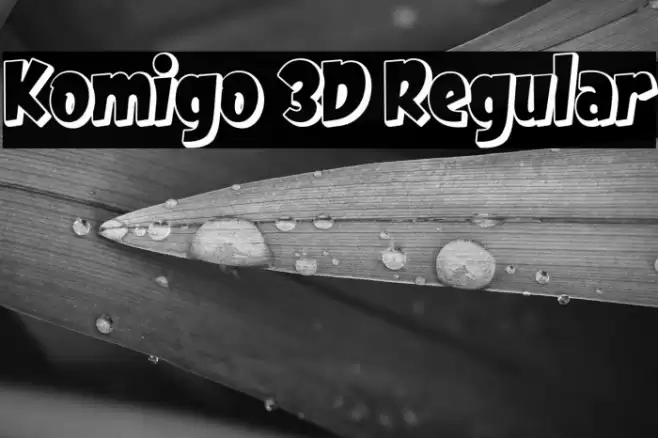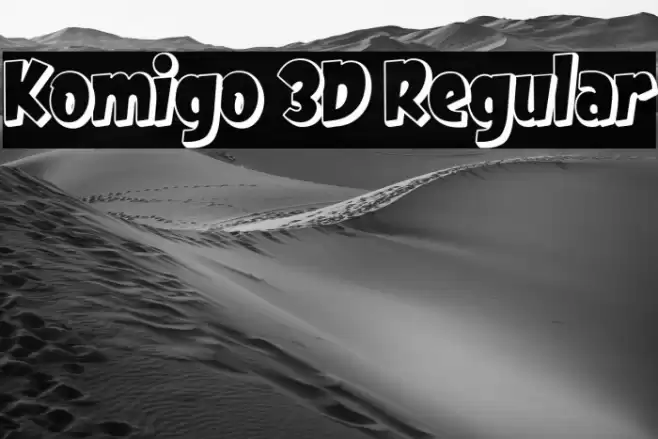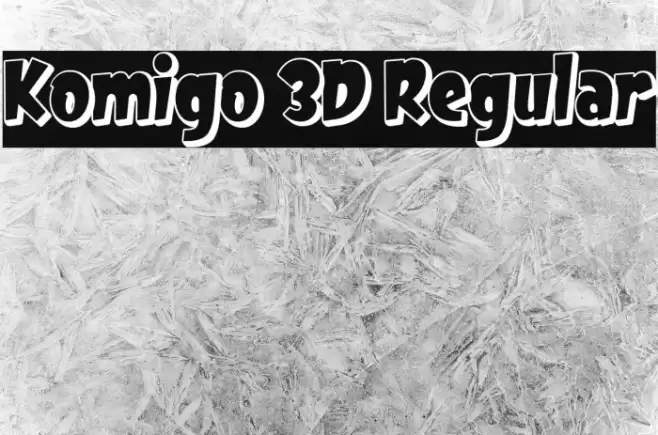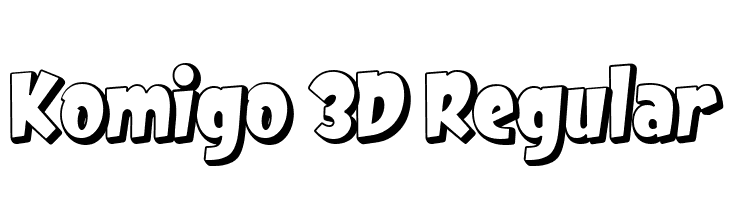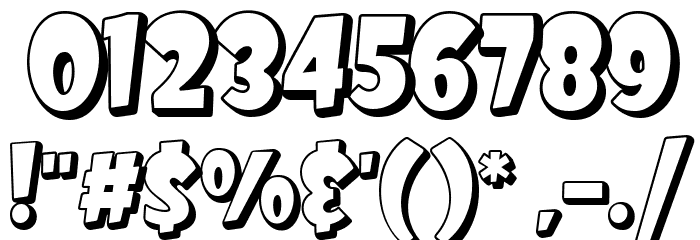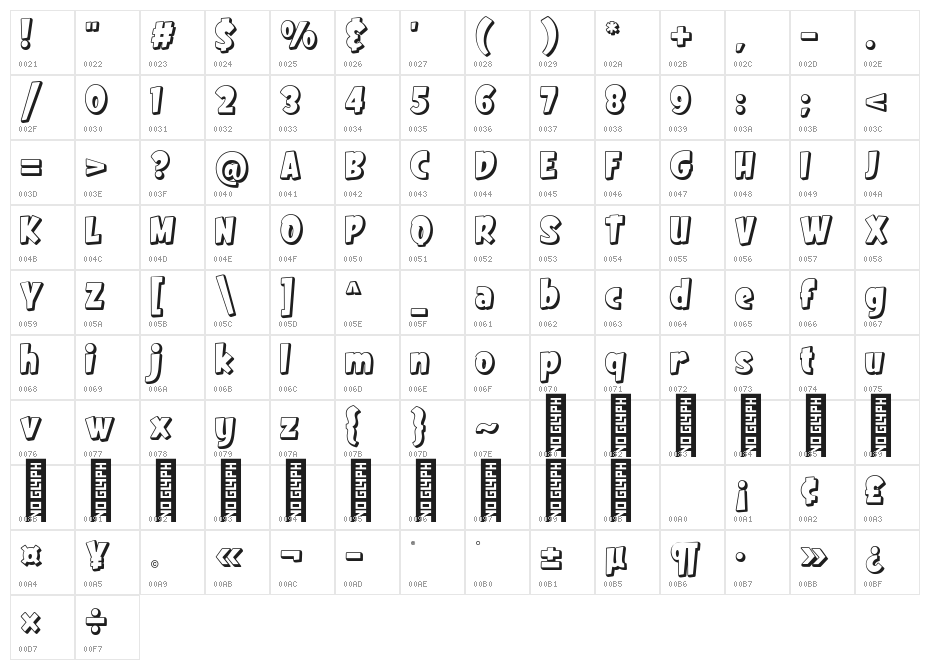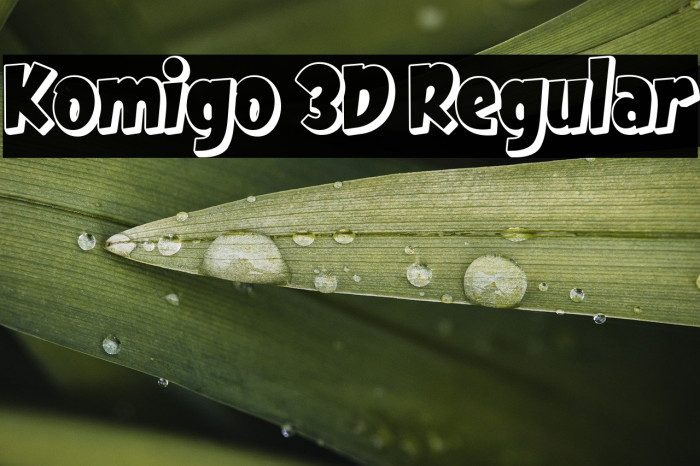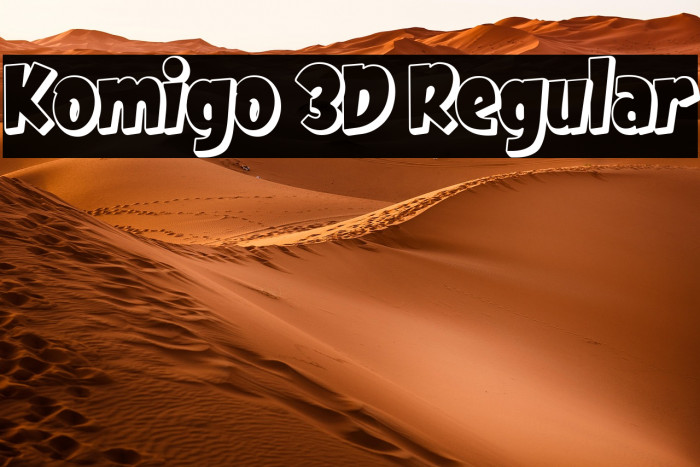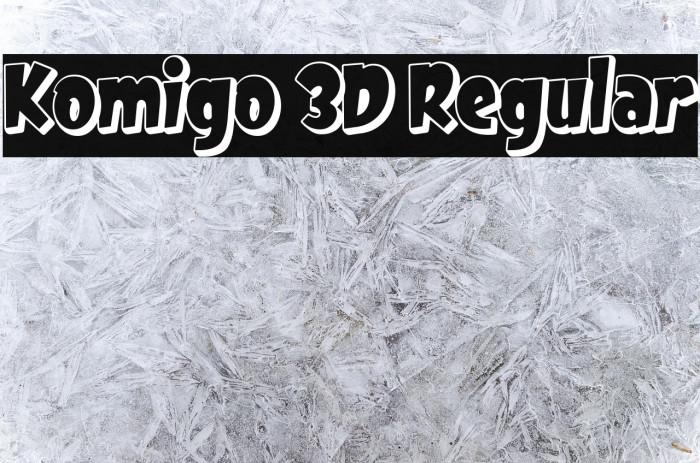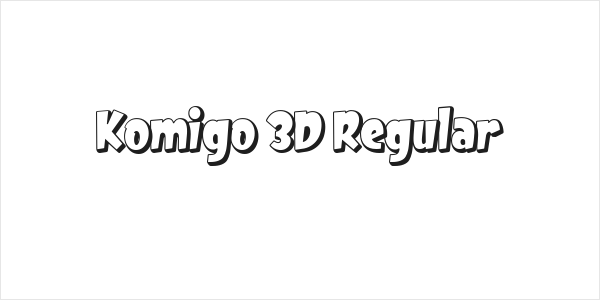
Komigo 3D Regular Font
Komigo 3D Regular Description
This font features a bold, three-dimensional style with a playful and dynamic appearance. The characters are outlined with a thick black shadow, giving them a striking and eye-catching look. The letters are rounded and slightly condensed, adding to the font's friendly and approachable vibe. The uppercase and lowercase letters maintain a consistent style, with smooth curves and a uniform thickness. The numerals and special characters are equally bold and maintain the same 3D effect, ensuring a cohesive look across all text. This font is perfect for projects that require a fun and engaging aesthetic.
A bold, playful 3D font with a dynamic and eye-catching style from Uncategorized fonts.
- Proposed Projects: Ideal for children's book covers, comic strips, playful branding, and eye-catching posters.
- Width: Condensed
- Overall Style: Playful, Dynamic, Fun